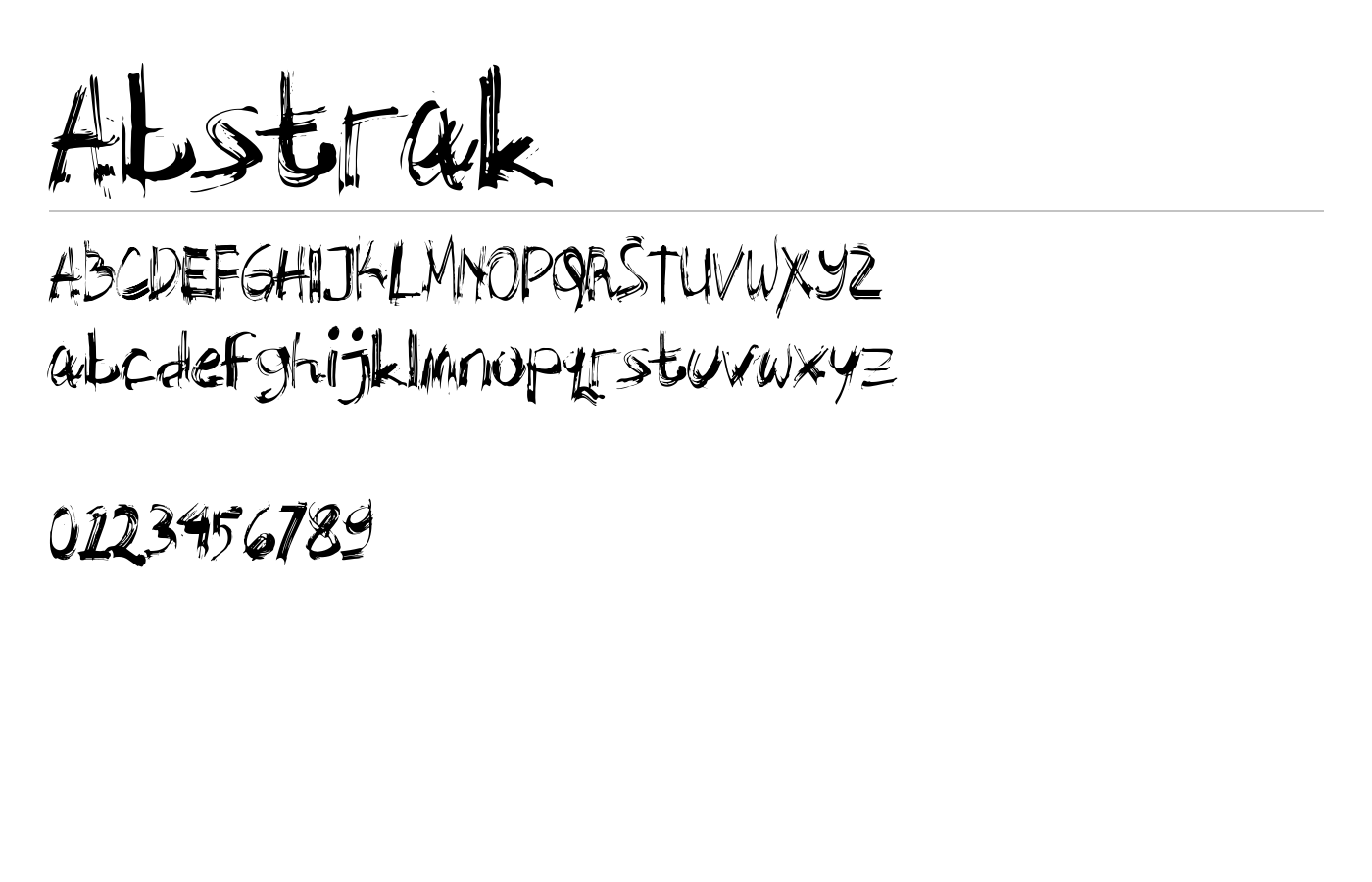
Abstrak is an expressive, brush-style handwritten font with a rough, textured appearance that gives it a dynamic and artistic vibe. Its irregular strokes and high contrast between thick and thin lines make it perfect for creative projects that need a bold, edgy, and spontaneous feel. This font works well for eye-catching posters, logos, and artistic branding, communicating energy and individuality.
Abstrak Font
About Abstrak Font
| Font family | Abstrak Font |
| Designer | Oziel89 Studio |